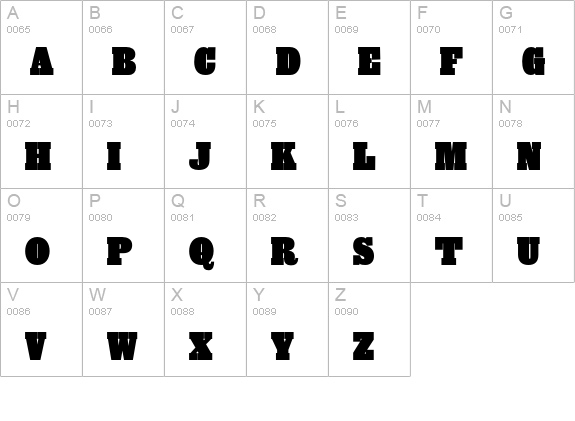
Introducing Giza-NineOne, a stunning display font that exudes modern sophistication and timeless elegance. With its clean lines and unique geometric shapes, Giza-NineOne is perfect for creating eye-catching headlines, branding materials, and social media graphics. This versatile font is designed to make a bold statement while maintaining a sense of refinement and professionalism. What sets Giza-NineOne apart is not only its striking design, but also the fact that it is available for free download at FontsMarket.com. That's right - you can elevate your designs with this premium font without breaking the bank. Whether you're a seasoned designer looking to add a fresh touch to your projects or a novice exploring the world of typography, Giza-NineOne is the perfect choice for adding a touch of sophistication to your work. Don't miss out on this opportunity to enhance your creative projects with Giza-NineOne. Download this exquisite font for free today and unleash your design potential like never before.